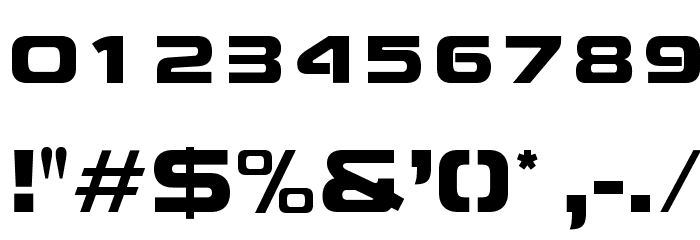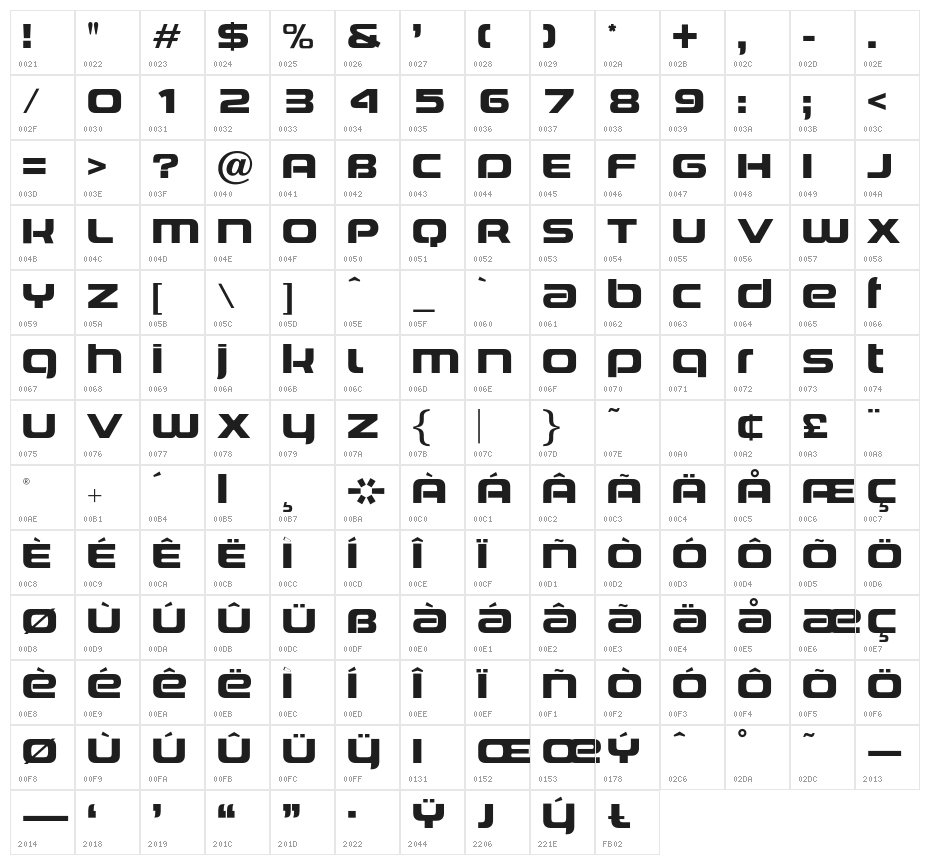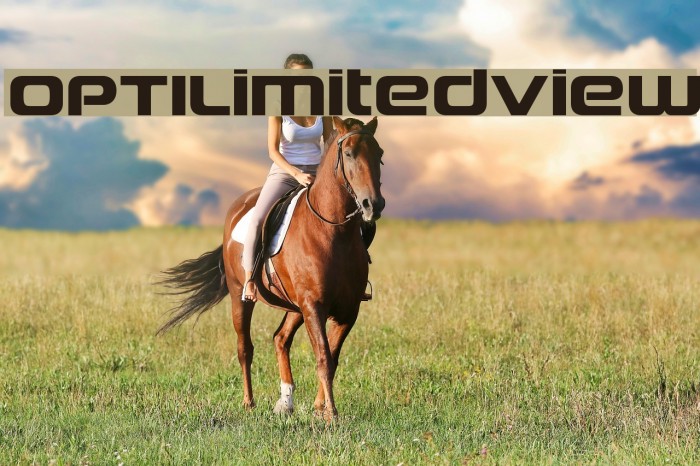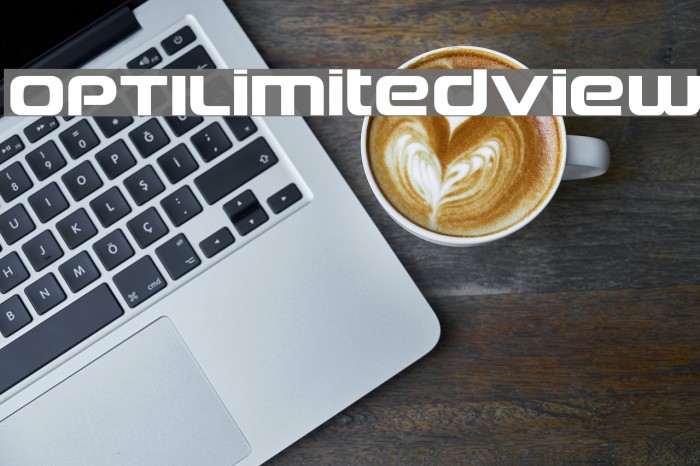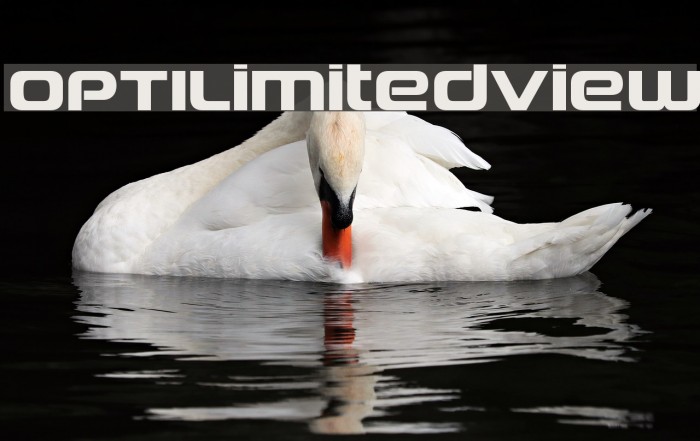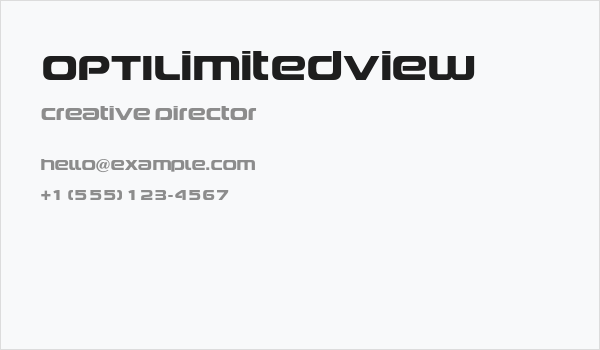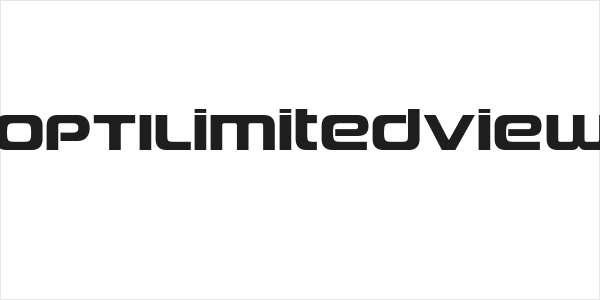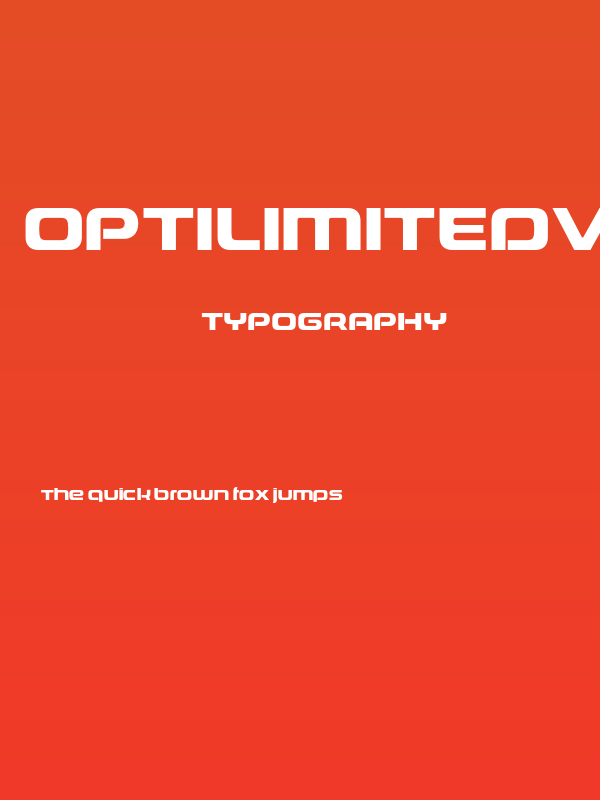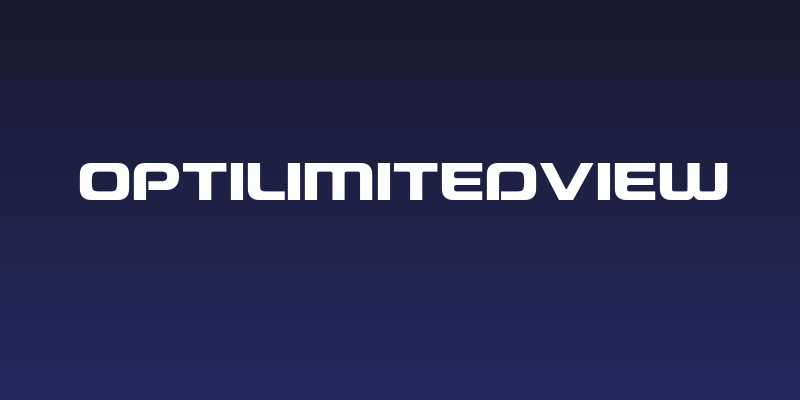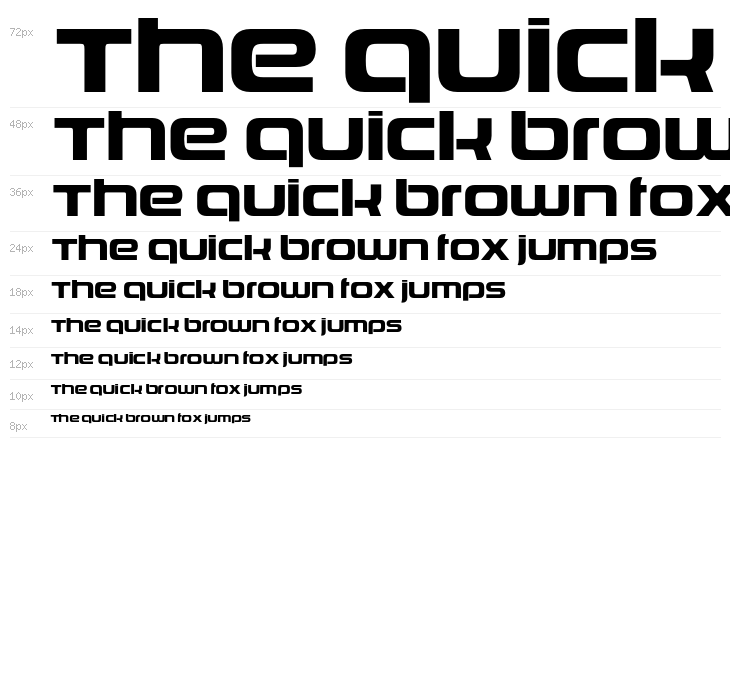
OPTILimitedView Font
OPTILimitedView Description
This font features a bold and futuristic design with geometric shapes and a strong presence. The characters are uniformly structured, with a consistent width and a modern aesthetic. The uppercase letters are particularly striking, with a blocky and angular appearance that conveys strength and stability. The lowercase letters maintain the same geometric style, offering a cohesive look across different text cases. Numbers and special characters are designed to match the overall theme, ensuring a seamless integration in various applications. The font's boldness and unique style make it ideal for projects that require a modern and impactful visual identity.
| Proposed Projects | Ideal for technology branding, sci-fi themed designs, video game interfaces, and modern advertising campaigns. |